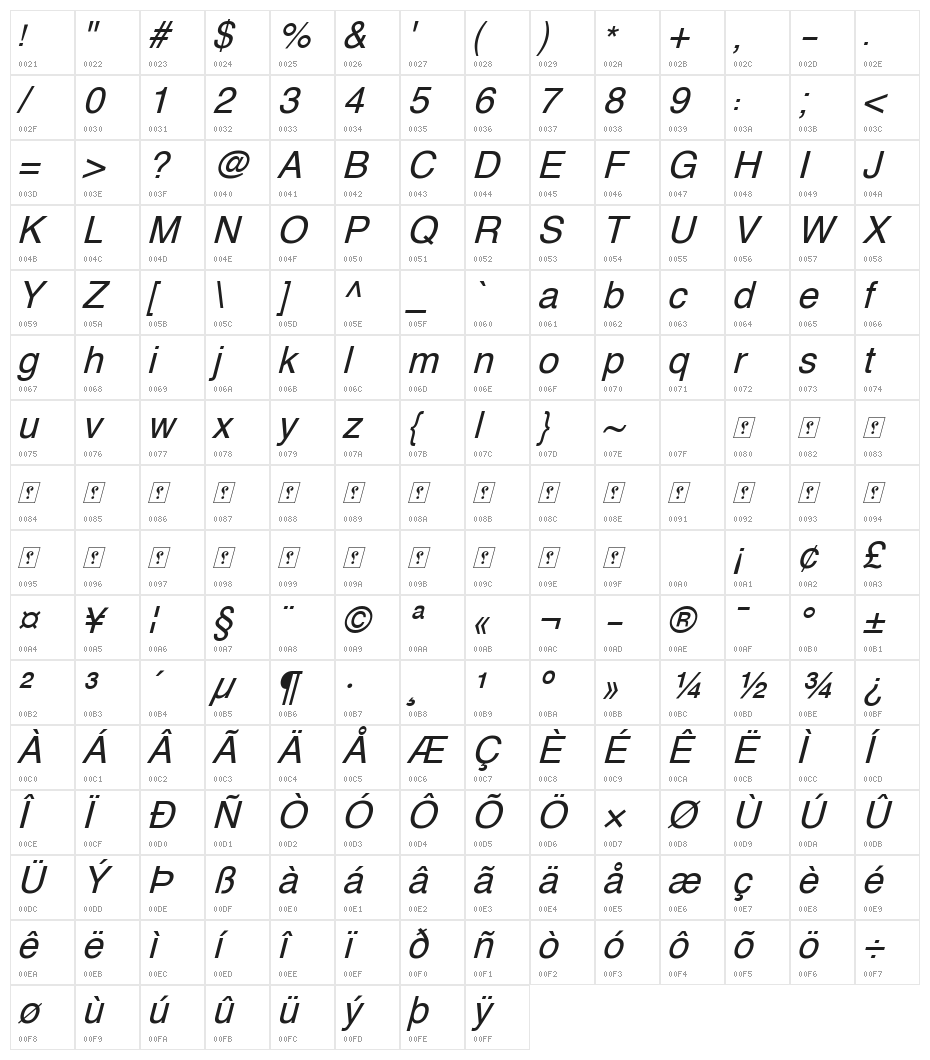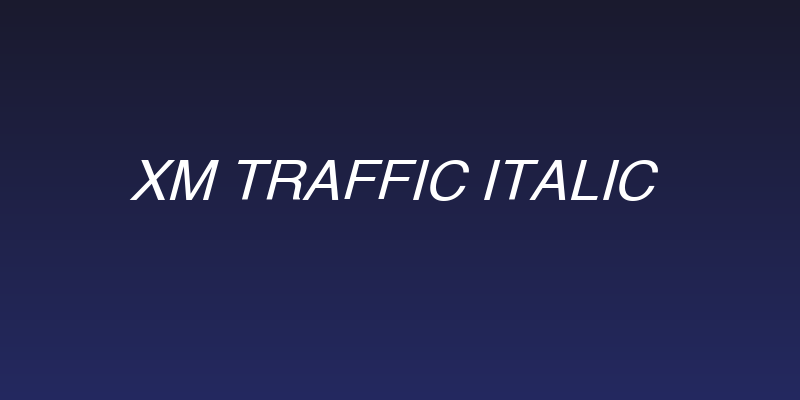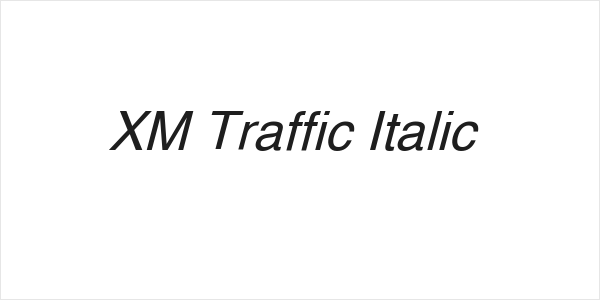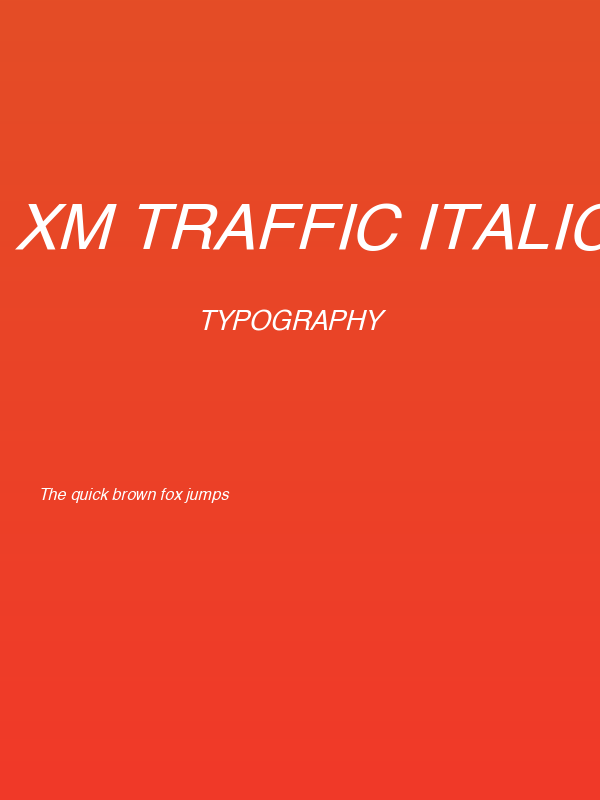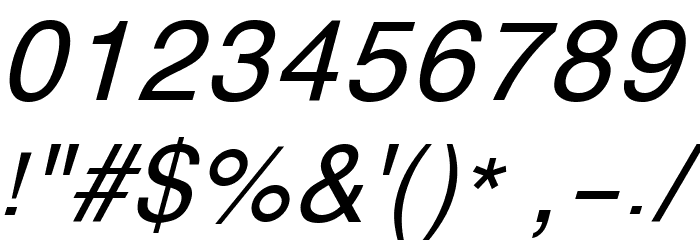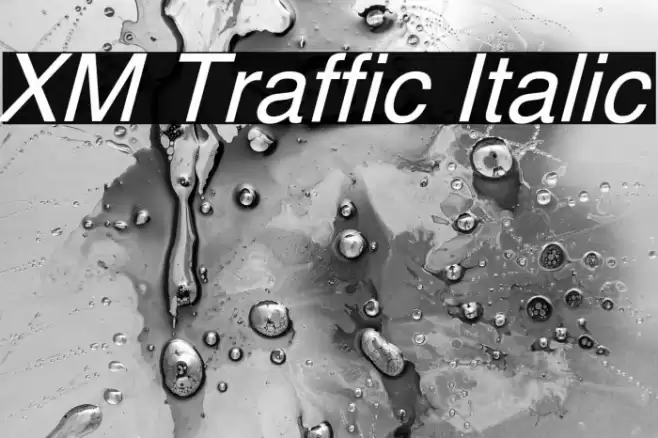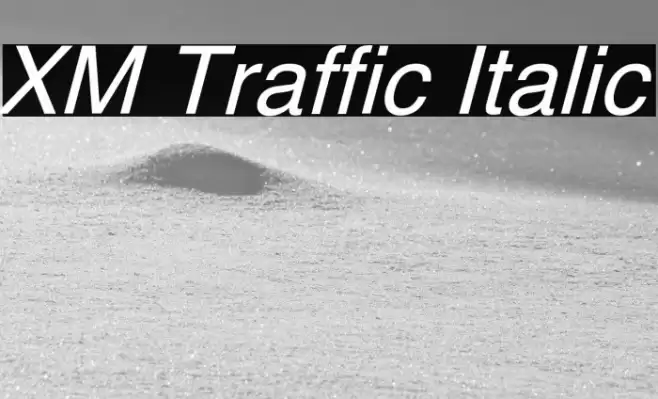
XM Traffic Italic Font
XM Traffic Italic Description
This font exhibits a sleek and modern design with a distinct italic slant, giving it a dynamic and forward-moving appearance. The characters are well-proportioned with smooth curves and clean lines, making it highly legible. The uppercase letters are bold and assertive, while the lowercase letters maintain a consistent flow, enhancing readability. The numerals are clear and balanced, and the special characters are well-integrated, ensuring versatility in various contexts. The overall style is contemporary, making it suitable for a wide range of applications.
| Use Case | Headlines, Body text, Logos |
| Proposed Projects | Ideal for branding, advertising, and editorial design where a modern and dynamic look is desired. |